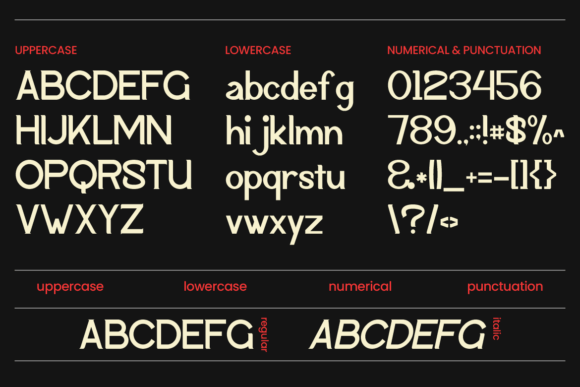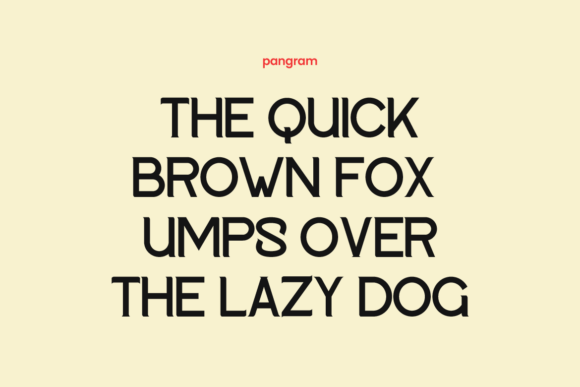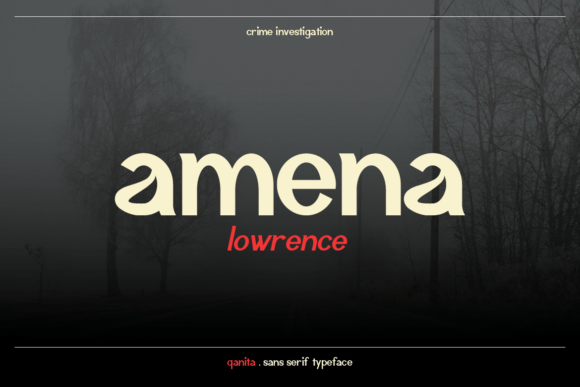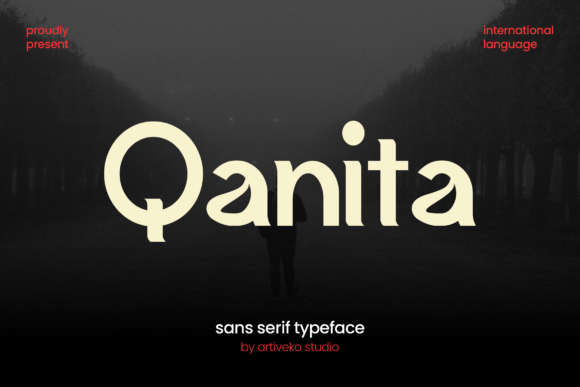
Introduction to Qanita Font
Qanita is a sleek and versatile sans serif font designed to balance clarity and sophistication.
Its clean lines, smooth curves, and geometric structure make it the perfect choice for branding, editorial layouts, packaging, digital interfaces, and social media graphics .
Why Choose Qanita Font?